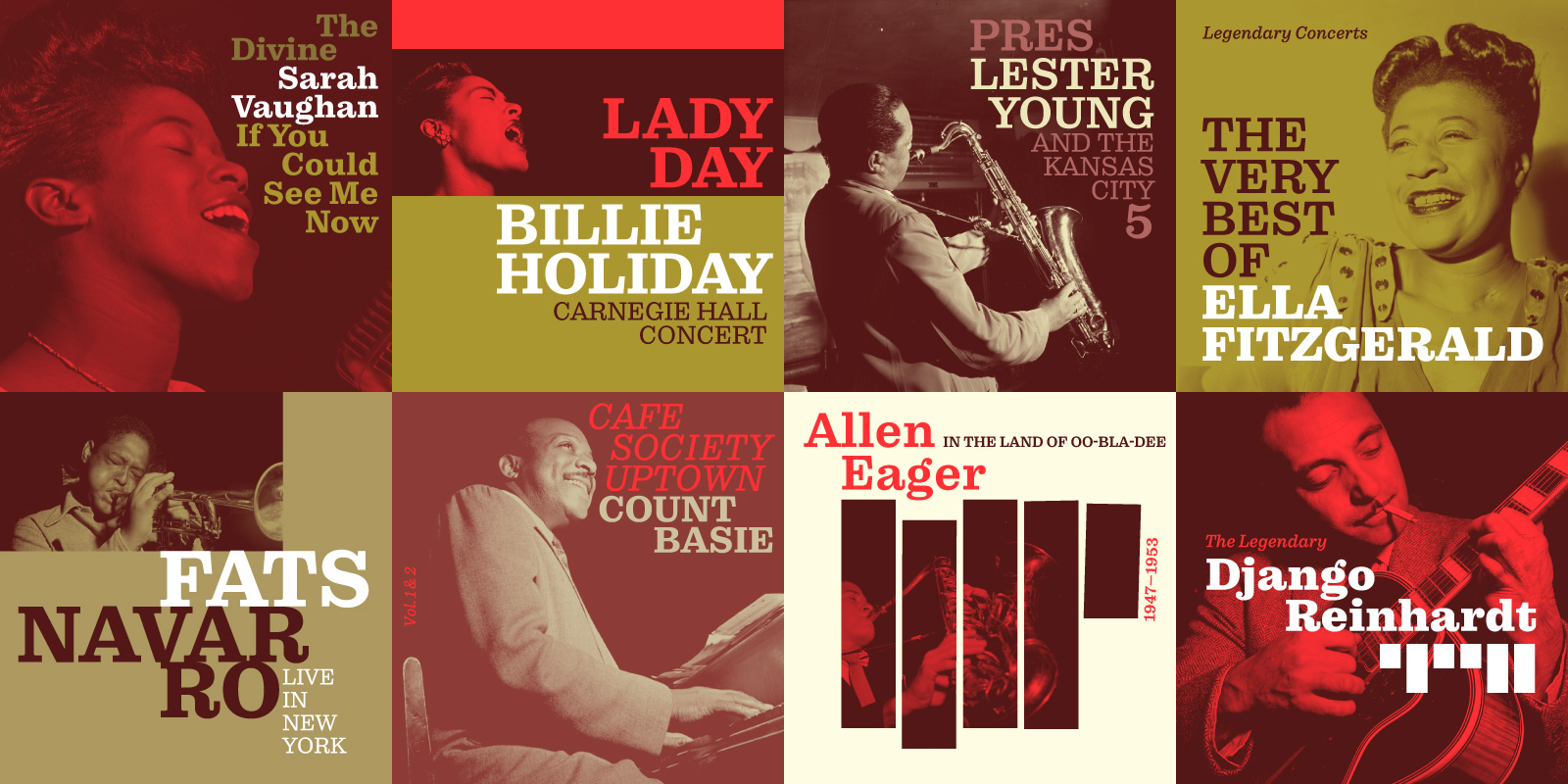
The Pulpo Font is a vibrant and playful typeface that brings an immediate sense of fun and creativity to any design project. Envision its whimsical shapes on lively children's book covers, adding a burst of personality to playful branding for toy companies, or making headlines pop on festive event invitations and party flyers. Its approachable and friendly aesthetic also makes it an excellent choice for educational materials, casual social media posts, animated content, and even quirky product packaging. Whether you're aiming for a cheerful, lighthearted vibe or a distinctive artistic touch, Pulpo Font delivers with its unique charm, ensuring your visuals are both engaging and memorable.
What makes Pulpo Font so exciting is its ability to infuse designs with immediate character and joy. In a world often dominated by serious or conventional typefaces, Pulpo Font offers a refreshing alternative that captures attention with its distinctive and energetic letterforms. It’s more than just a typeface; it’s a tool for storytelling, allowing designers to convey warmth, playfulness, and imagination effortlessly. This font excels at creating an emotional connection with the audience, making content feel more accessible and enjoyable. Designers will find it an invaluable asset for projects that require a unique visual identity that truly stands out from the crowd.
The Pulpo Font family is typically designed to offer a delightful range of styles, enhancing its versatility across various creative applications. Beyond the core Pulpo Regular typeface, you might discover playful variations such as Pulpo Bold for a stronger impact, or subtle Pulpo Outline styles for a different visual texture. Some families may even include decorative alternates or a selection of quirky dingbats that perfectly complement its overall character. These diverse family members provide designers with the flexibility to craft engaging typographic compositions, ensuring visual consistency and maximum creative expression from prominent titles to smaller decorative elements, all while maintaining the font’s inherent charm.